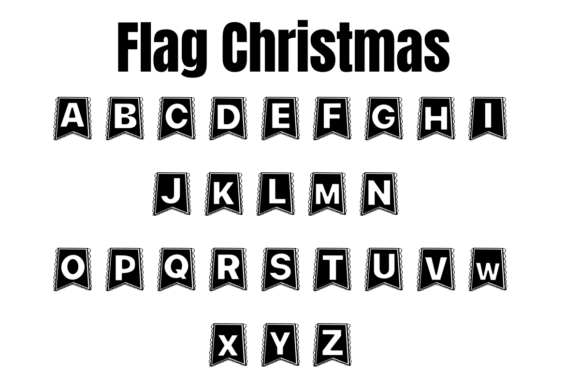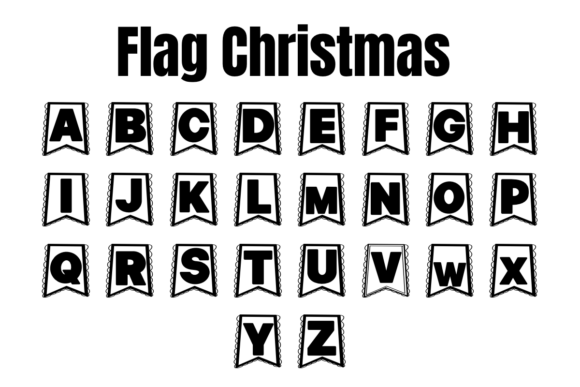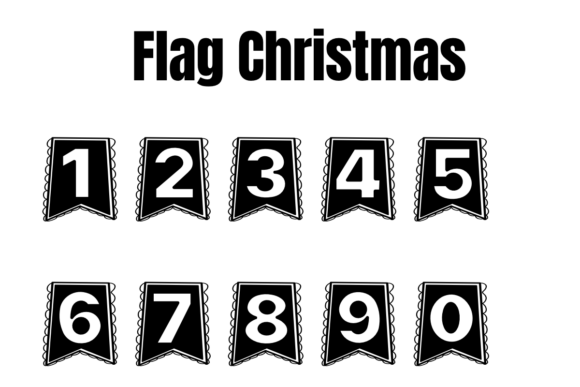
Introduction to Flag Christmas Font
Have you ever been brainstorming ideas for a festive holiday project, only to be stuck on the perfect font to match your creative vision? That’s where the Flag Christmas Font comes in – a high-quality, free download that’s sure to bring a touch of holiday magic to your design project.
This versatile font is perfect for taking notes, writing a diary, or making greeting cards, but its possibilities extend far beyond the basics. With a transparent background, it’s easy to layer and combine with other design elements to create a truly unique look. As a valuable resource for designers, the Flag Christmas Font is a must-have for any creative project, from social media posts to banners and more.
Key Features of Flag Christmas Font
- High-quality design resource for creative projects, perfect for the holiday season.
- Transparent background, allowing for seamless integration into various design elements.
- Includes a range of festive characters, including flags, holly, and snowflakes.
- Designed with a bold and playful style, suitable for various design applications, including posters, invitations, and social media graphics.
Honest Review: Flag Christmas Font
As a designer, I’m always on the lookout for high-quality design resources that can elevate my creative projects. The Flag Christmas Font is one such resource that caught my attention.
What works well: ✨ The font is free to download, making it a great addition to any design project. The design itself is clean and festive, perfect for a Christmas-themed project. The transparent background also makes it easy to overlay on top of other design elements.
Key Features:
- Clean and festive design
Overall impression: I think the Flag Christmas Font is a great design resource for personal projects or small-scale commercial use. It’s a fun and festive addition to any design project, and the free download makes it a great value. Just be aware of the limitations, and you’ll be all set.
To get the most out of the Flag Christmas Font, use it in combination with other design elements, such as images or graphics, to create a cohesive and visually appealing design. Experiment with different font sizes and colors to add emphasis and create a festive atmosphere.
The Flag Christmas Font is perfect for creating designs for the holiday season, such as Christmas cards, gift tags, and social media graphics. It’s also great for creating custom designs for businesses, such as holiday-themed banners or promotional materials.